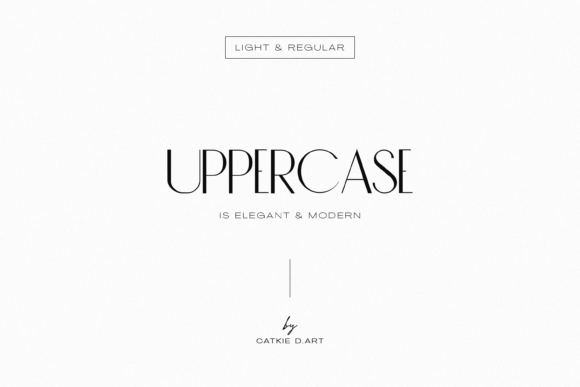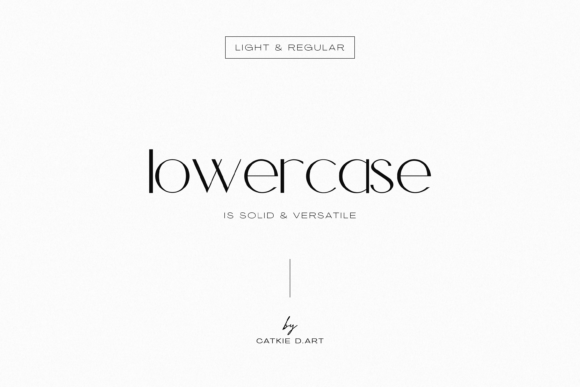
Ginger Font: Elevate Your Designs with Elegance and Versatility
In the world of typography, a font can make or break a design. For designers and crafters seeking an elegant, clean, and versatile typeface, look no further than the Ginger Font. This beautifully crafted font is perfect for a wide range of applications, from brand design and logos to magazines and simple textual designs. In this article, we’ll explore the features and benefits of the Ginger Font, and why it’s a must-have for any designer or crafter looking to elevate their work.
What is Ginger Font?
Ginger Font is a modern, sophisticated typeface that exudes elegance and refinement. Its clean lines, subtle curves, and balanced proportions make it an ideal choice for designs that require a touch of sophistication. Whether you’re creating a logo, brochure, or social media graphic, Ginger Font is sure to impress.
Key Features of Ginger Font
- Elegant and Clean Design: Ginger Font boasts a sleek, contemporary design that’s perfect for creating visually stunning designs.
- Versatile: This font is suitable for a wide range of applications, from branding and advertising to editorial and digital design.
- PUA Encoded: Ginger Font is PUA (Private Use Area) encoded, which means you can access all the glyphs and swashes with ease. This feature allows you to customize your designs and add a personal touch.
Benefits of Using Ginger Font
So, why choose Ginger Font for your next design project? Here are just a few benefits of using this exceptional typeface:
- Enhance Your Brand’s Visual Identity: With Ginger Font, you can create stunning brand designs that reflect your company’s values and personality.
- Stand Out from the Crowd: This unique and elegant font will help your designs stand out in a crowded marketplace, capturing the attention of your target audience.
- Easy to Use: Ginger Font is PUA encoded, making it easy to access and use the glyphs and swashes you need to create beautiful designs.
- Save Time and Effort: With Ginger Font, you can create professional-looking designs quickly and easily, saving you time and effort.
Who Can Benefit from Ginger Font?
Ginger Font is perfect for a variety of designers and crafters, including:
- Graphic Designers: Create stunning brand designs, logos, and marketing materials with ease.
- Logotype Designers: Craft beautiful, custom logos that reflect your client’s brand identity.
- Digital Artists: Add a touch of elegance to your digital art with Ginger Font.
- Crafters: Use Ginger Font to create beautiful handmade cards, scrapbook pages, and other craft projects.
Tips for Using Ginger Font
To get the most out of Ginger Font, here are a few tips to keep in mind:
- Experiment with Different Sizes and Colors: Find the perfect combination to make your design pop.
- Pair with Other Fonts: Combine Ginger Font with other fonts to create a unique and visually appealing design.
- Use Swashes and Glyphs: Take advantage of the PUA encoding to add a personal touch to your designs.
In conclusion, Ginger Font is an exceptional typeface that’s perfect for designers and crafters seeking elegance, versatility, and ease of use. With its clean design, PUA encoding, and wide range of applications, this font is sure to become a staple in your design toolkit. Whether you’re creating brand designs, logos, or simple textual designs, Ginger Font is the perfect choice. So why wait? Download Ginger Font today and elevate your designs to new heights!